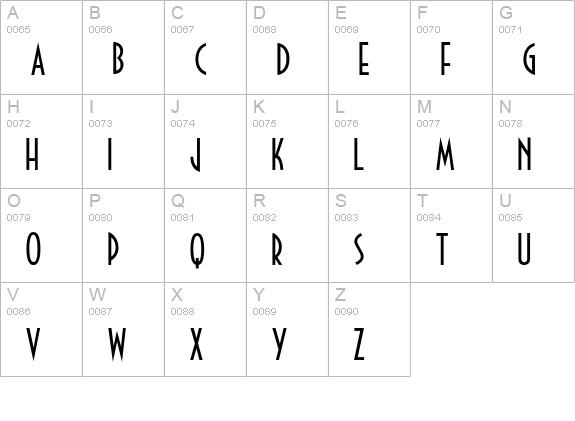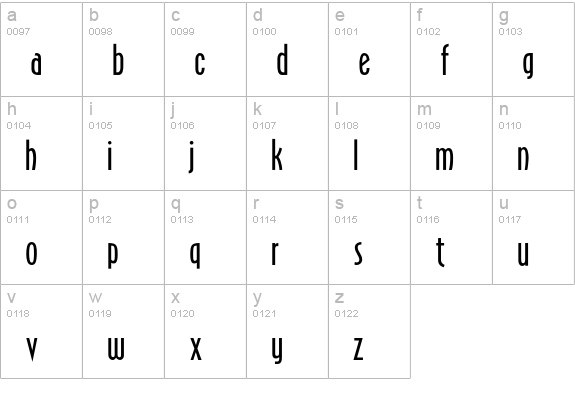
Emporium Font Details
Emporium font is a stunning and elegant typeface that exudes sophistication and charm. Its intricate details and delicate curves make it perfect for adding a touch of class to any design project. Whether you're creating invitations, branding materials, or social media graphics, Emporium font will surely elevate your work to the next level. What's even better is that Emporium font is available for free download at FontsMarket.com. This means you can easily access this beautiful font and use it in your projects without any cost. Don't miss out on the opportunity to enhance your designs with the timeless beauty of Emporium font. Download it now and let your creativity shine!